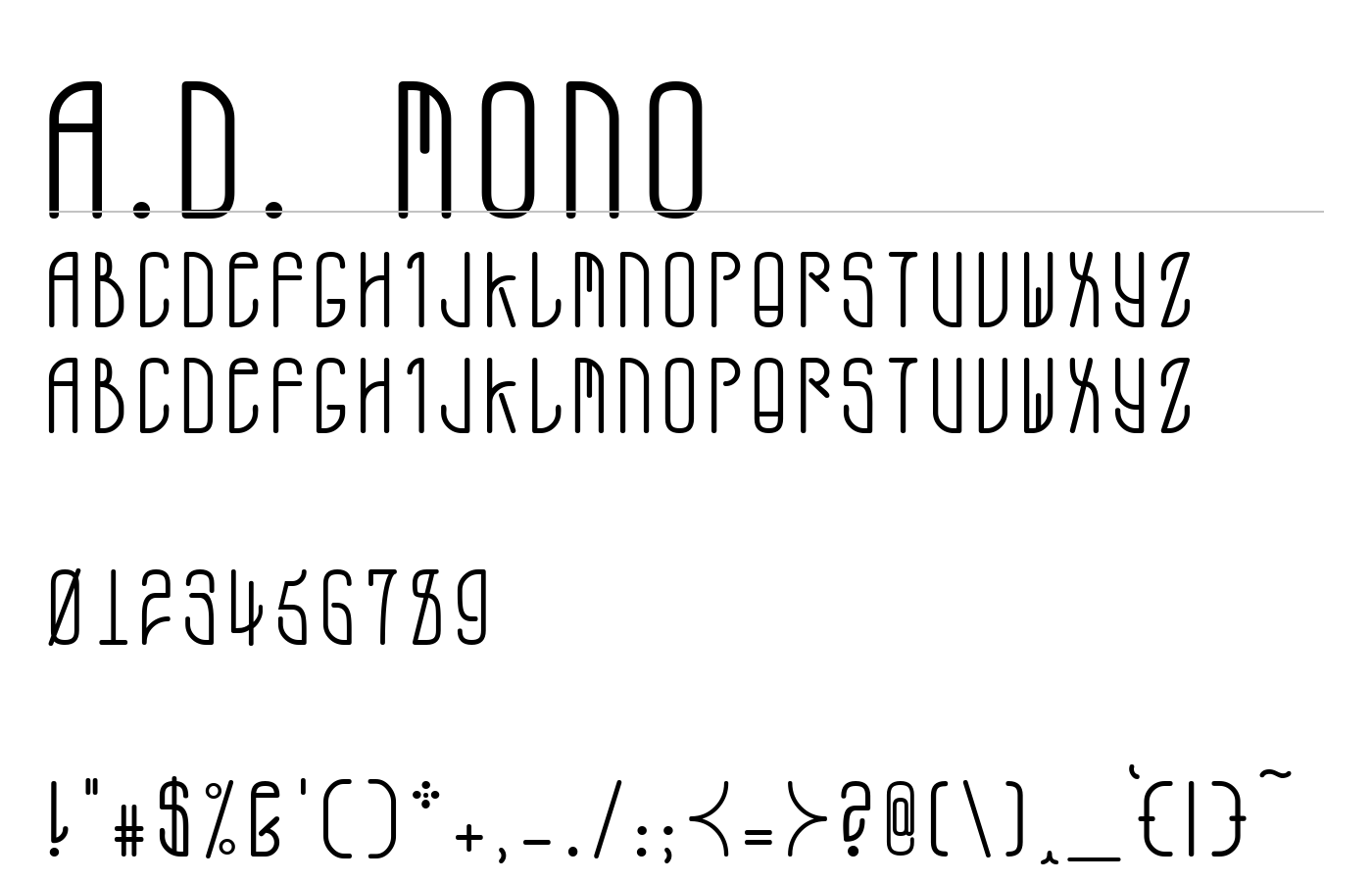
A.D. MONO is a sleek, monospaced sans serif font with a tall, narrow structure and consistent stroke weight that gives it a clean, modern look. Its thin lines and slightly rounded terminals add a subtle softness, while unique character details like the distinct Q tail and stylized numerals bring a touch of personality. This font is ideal for tech, coding interfaces, or minimalist design projects where clarity and a contemporary feel are key.
A.D. MONO Font